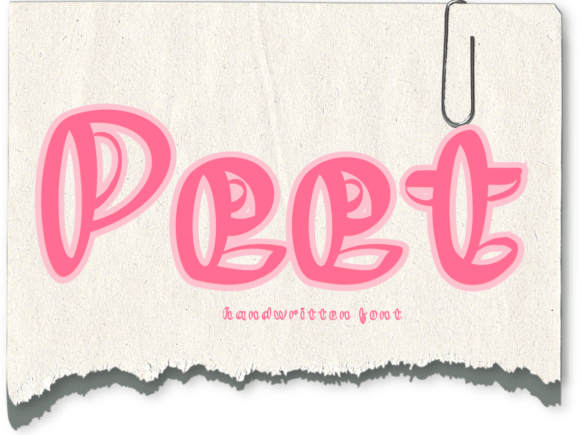
Unleash the charm and individuality of your designs with Peet Font, a captivating handwritten font that exudes joy and playfulness. Step into a world where creativity flourishes and let Peet's charming strokes add a touch of delight to your projects.
With its whimsical and expressive style, Peet is perfect for adding a personal touch to your designs. Its playful nature lends itself effortlessly to invitations, greeting cards, branding, and social media graphics, injecting a sense of fun and warmth into every character.
As a script font, Peet possesses a natural flow and rhythm that mimics the beauty of handwritten words. Its carefully crafted curves and loops dance across the page, creating a captivating visual experience. The font's unique personality shines through in every letterform, adding a touch of charm and authenticity to your designs.
Peet's versatility extends beyond its playful nature. Its charming style seamlessly complements a wide range of design aesthetics, from elegant and sophisticated to whimsical and lighthearted. Whether you're creating a wedding invitation, a children's book, or an eye-catching marketing campaign, Peet effortlessly adapts to your vision, adding a touch of magic to every project.
Embark on a creative journey with Peet Font, and discover the joy of handwritten designs. Let your imagination soar as you explore new possibilities, creating designs that captivate, inspire, and spread happiness. With Peet, your designs will leave a lasting impression, evoking emotions and leaving your audience enchanted.